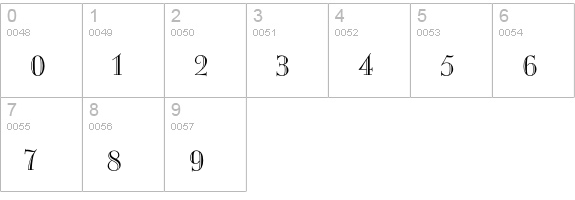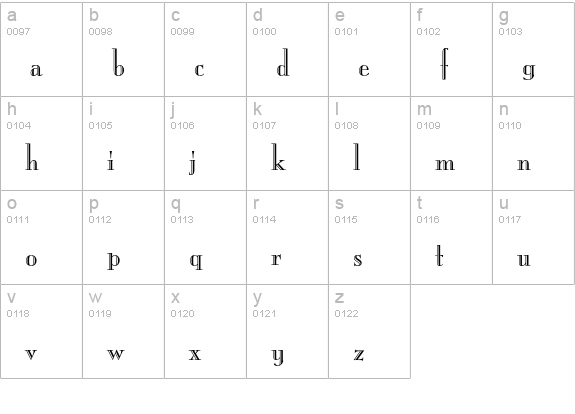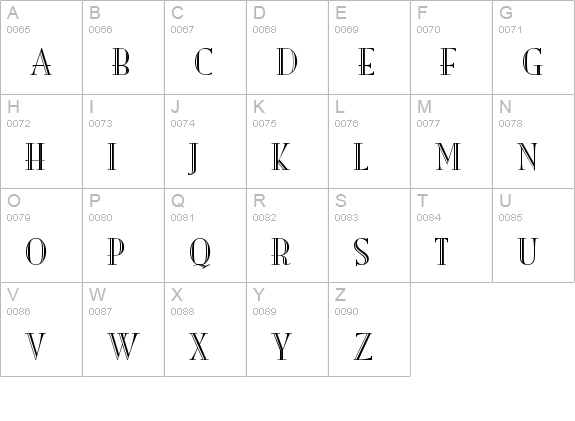
MonaLisaRecutEF Font Details
MonaLisaRecutEF font is a beautifully crafted typeface that exudes elegance and sophistication. Its intricate details and graceful curves make it perfect for adding a touch of class to any project. This versatile font can be used for a wide range of design applications, from elegant invitations to stylish branding. What sets MonaLisaRecutEF font apart is not only its stunning design but also the fact that it is completely free to download. Yes, you heard that right - this gorgeous font is available for free at FontsMarket.com. So go ahead and enhance your designs with the timeless beauty of MonaLisaRecutEF font today!